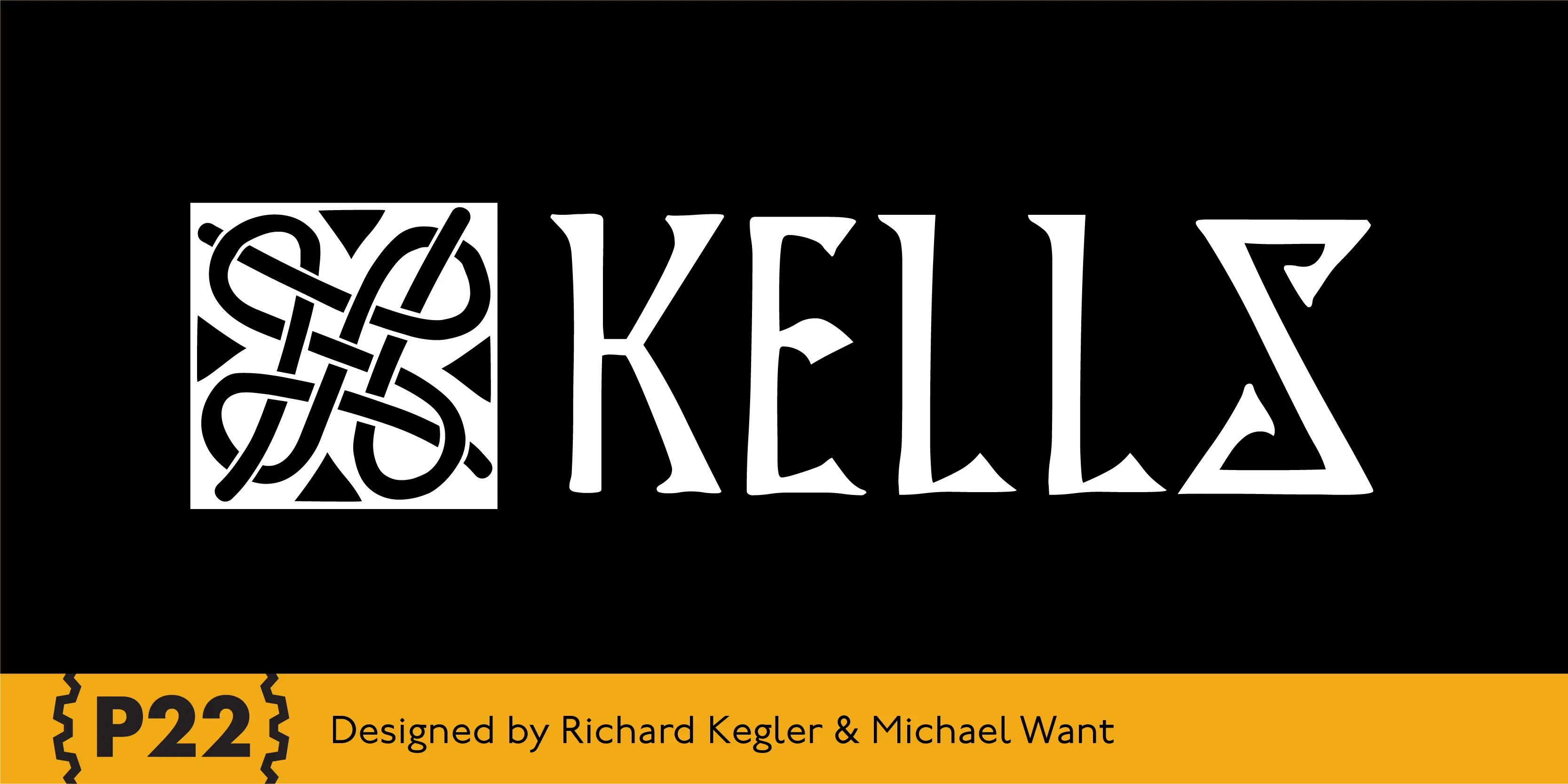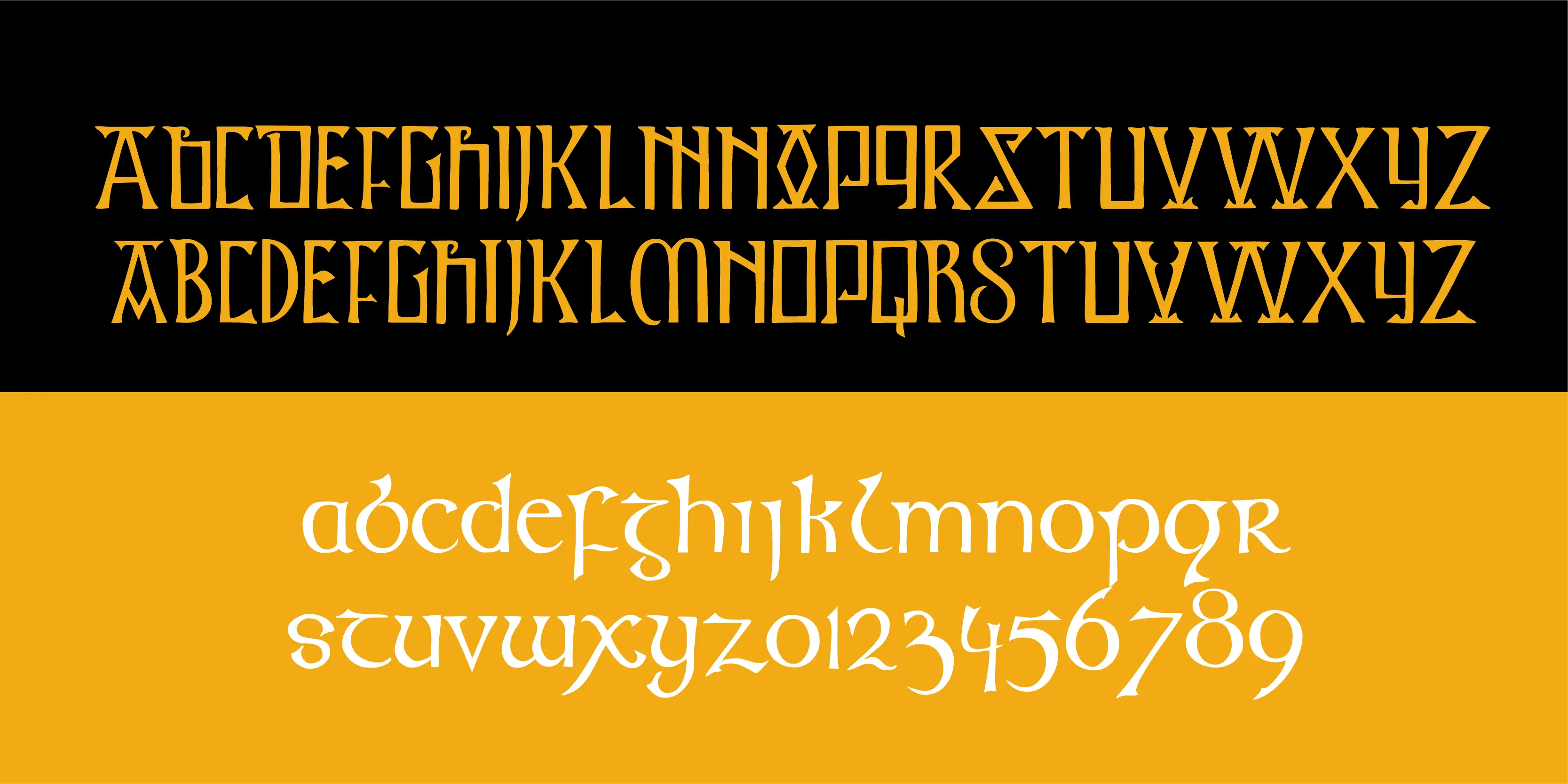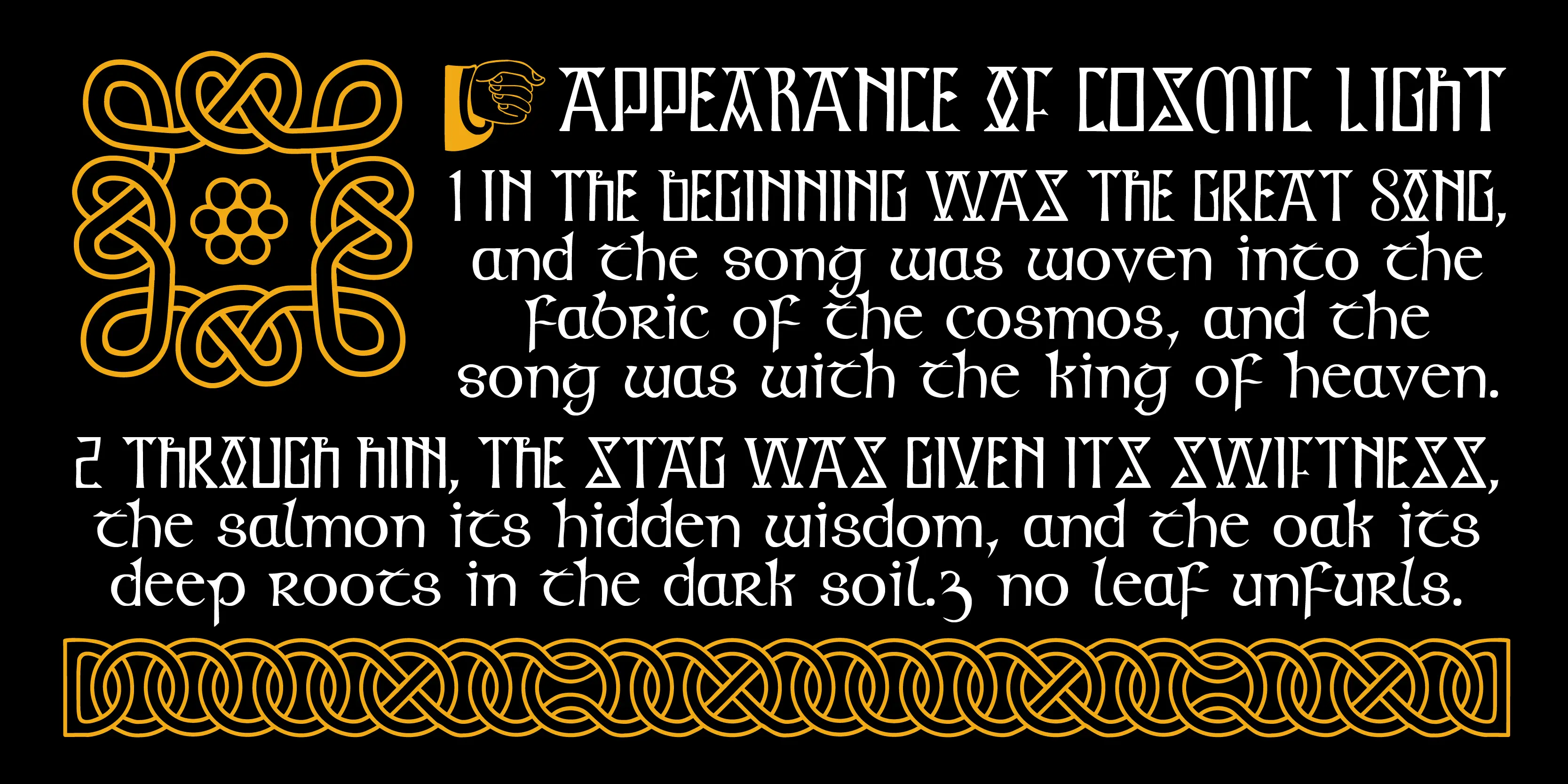
Kells Font Family
• Kells Round
• Kells Square
• Kells Extras
Kells
The Book of Kells is a ninth century gospel created in the British Isles and is considered to be the finest existing example of early Celtic art. The book itself is now housed in the Trinity College Library, Dublin. This computer set combines historical accuracy with functional readability and features 72 elements and linking borders.
Stylistic Set 1
Stylistic Set 2
Stylistic Set 3